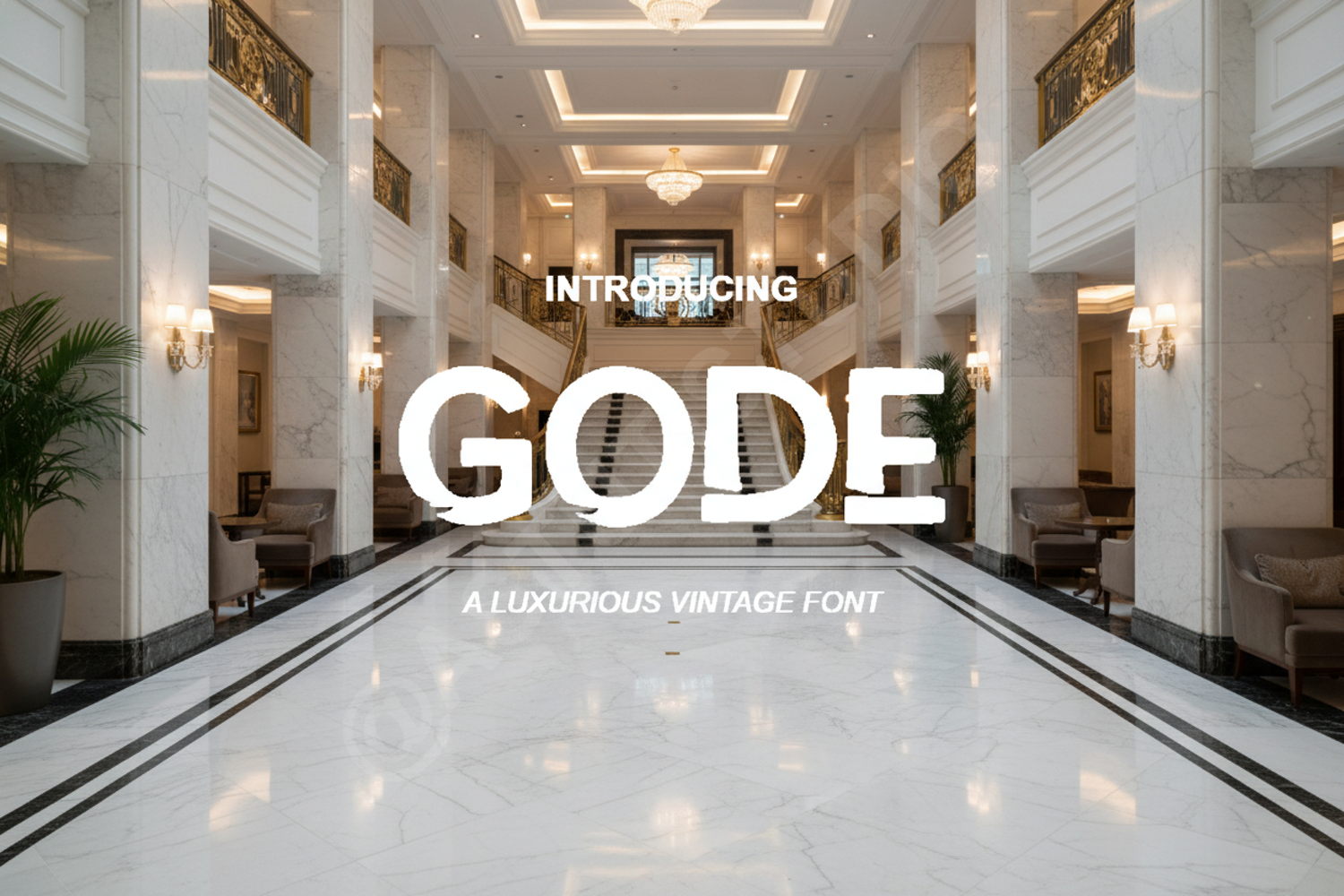
Gode - Sophisticated Modern Serif
Gode
Gode is a premium serif font that embodies sophistication and timeless elegance. Carefully crafted with clean lines and balanced proportions, this font is designed to elevate your creative projects to a professional standard. Whether you are working on a high-end fashion brand or a minimalist editorial layout, Gode provides the versatility and style needed to make a lasting impression.
- Full character set including uppercase, lowercase, numbers, and punctuation
- Multilingual support for global accessibility
- Branding and Identity: Create memorable logos and corporate stationery.
- Wedding Stationery: Perfect for elegant invitations, RSVP cards, and menus.
- Editorial Design: Ideal for magazine headers, book covers, and digital articles.
- Social Media: Elevate your Instagram quotes and Pinterest graphics.
- High-End Packaging: Add a touch of luxury to product labels and boxes.